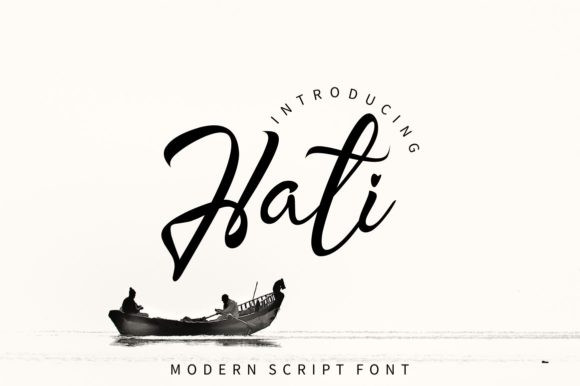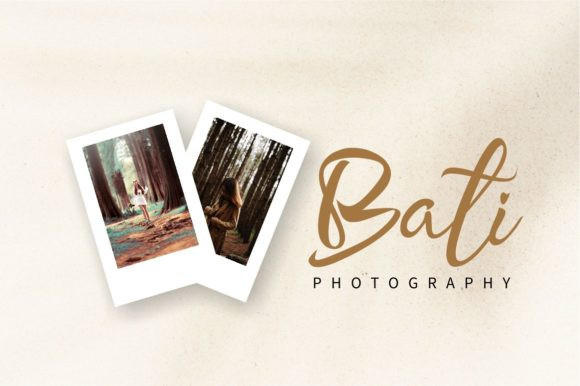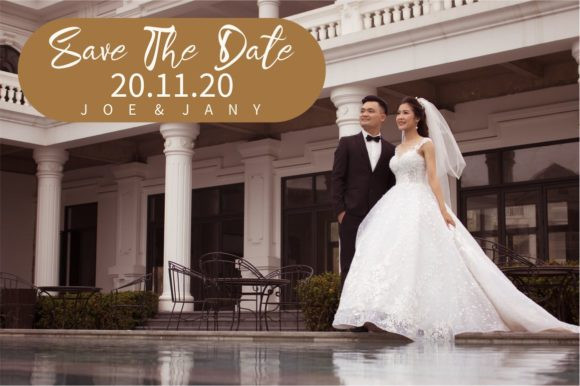
Hati Font Script Font
Hati is an exquisite handwritten font, masterfully designed to become a true favorite. It maintains its classy calligraphic influences while feeling contemporary and fresh. Fall in love with it and bring your projects to the highest levels!